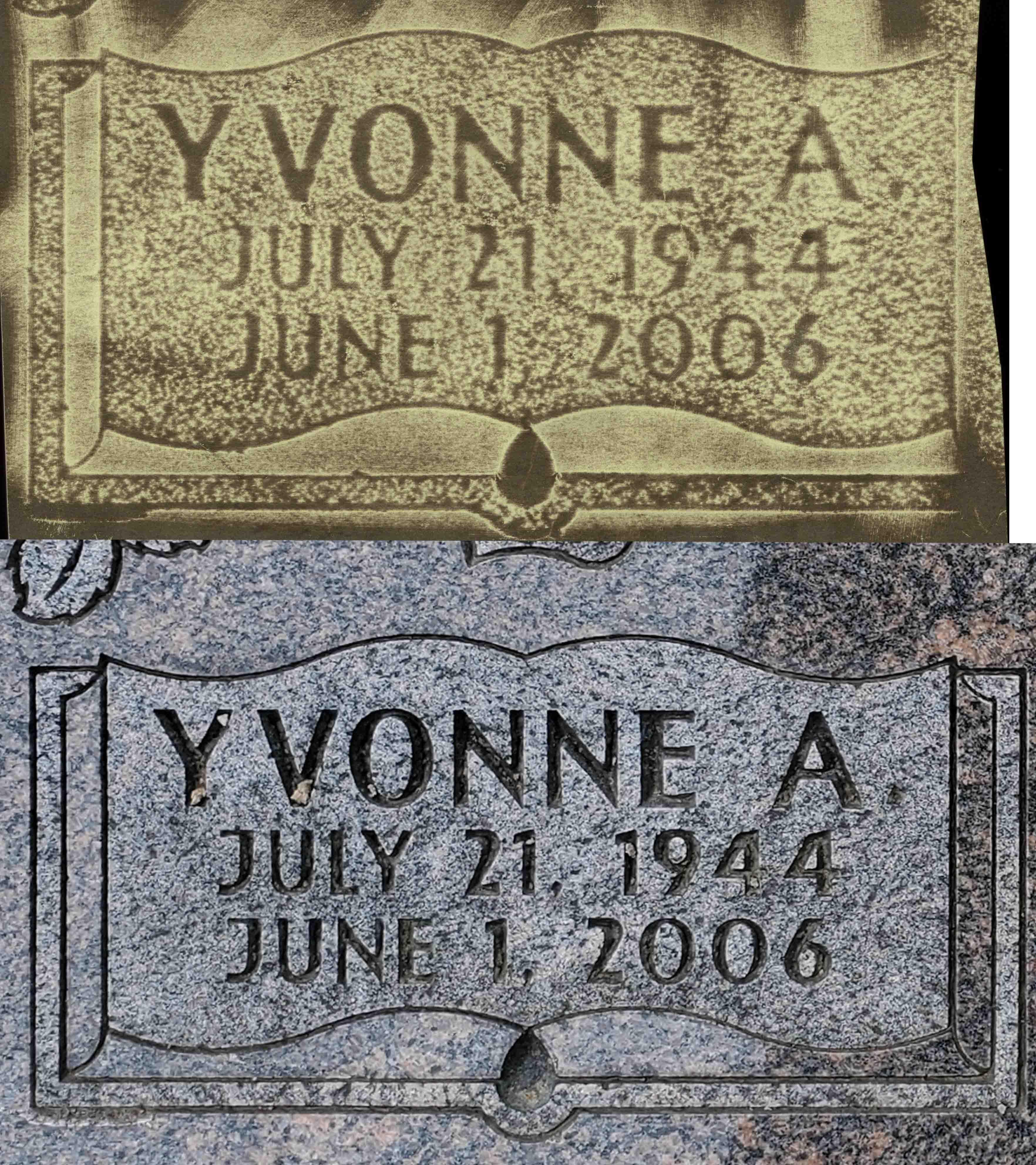
This is a font based on a German plastic stencil press alphabet by a now defunct company called Scheibenbogen. It was digitized in the Monu-Cad software and named “European”. After this it was copied into the software WinPC Sign and named “European Monument”. There are possibly other versions available in industry software, but as far as it is known by the MLC there are currently no TTF versions. If you need help matching it feel free to use the matching service: https://www.monumentletteringcenter.com/product/cemetery-inscription-matching-service/